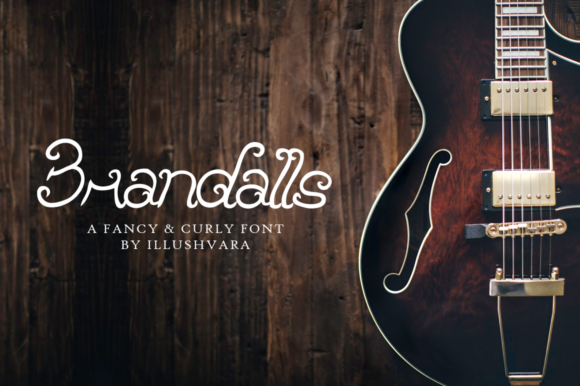
The Brandalls Font: A Fancy and Curly Companion for Your Design Projects
I’ll never forget the design project that led me to discover the Brandalls font. I was working on a branding project for a beachside resort, and I was struggling to find the perfect font to capture the playful, yet elegant vibe of the ocean. That’s when I stumbled upon Brandalls – a fancy and curly font that instantly transported me to the waves. In this article, I’ll share my love for this beautiful font, its features, and how to make the most of it in your design projects.
An Honest Review of Brandalls Font
What I Love About Brandalls Font ✨
- Its unique blend of ocean wave-inspired curves and script handwriting makes it a standout in any design project ✅
- The font’s beautiful, curved surface adds a touch of elegance to any text, making it perfect for branding, packaging, and advertising designs ✨
- Brandalls is versatile and can be used for a wide range of design projects, from logos and titles to body text and quotes 📚
- While Brandalls is a stunning font, it may not be the best choice for very long blocks of text, as its curly nature can make it harder to read ⚠️
- Some users may find the font’s uniqueness a bit overwhelming for certain design projects, such as minimalist or very formal designs 🤔
The Designer Inspiration Behind Brandalls
According to its creators, Brandalls was inspired by the ocean waves and the beauty of script handwriting. The font’s unique blend of curves and swashes was designed to evoke the movement and elegance of the sea. Whether or not that’s true, one thing is certain – Brandalls is a stunning font that’s sure to add a touch of sophistication to any design project.
Q: Is Brandalls a versatile font?
A: Yes, Brandalls is a versatile font that can be used for a wide range of design projects, from logos and titles to body text and quotes.